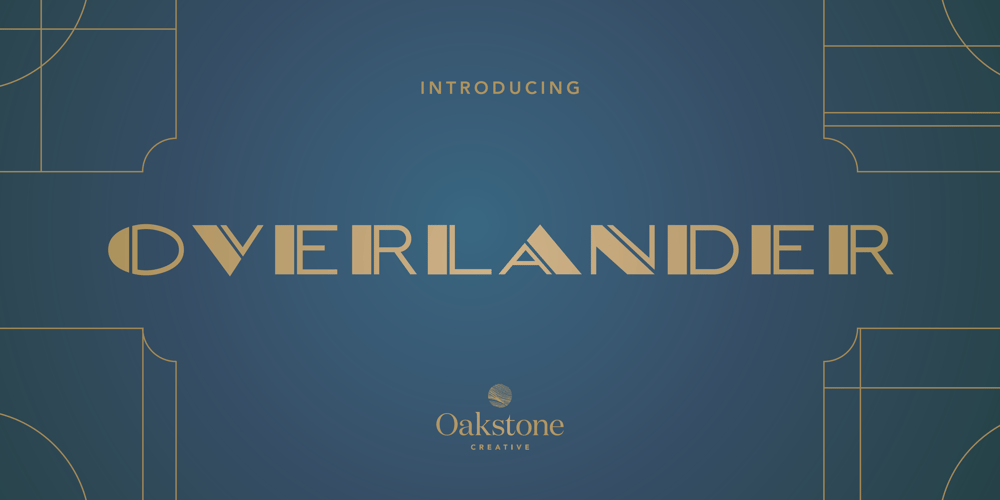
Overlander Font Family was designed by Tom Miatke and published by Oakstone Creative. Overlander contains 1 styles and family package options. Overland is a strong Art Deco typeface, inspired by the train ‘The Overland’ that runs in Australia, the font is perfect for headlines, display, branding and much more… even wedding stationary!. It is a bold and dense with an obvious deco inspired background, great for any projects or brands that wear the roaring 20’s to 40’s on their sleeve.Great for Signage, Wedding stationary, logos, branding materials, business cards, quotes, posters, and more!